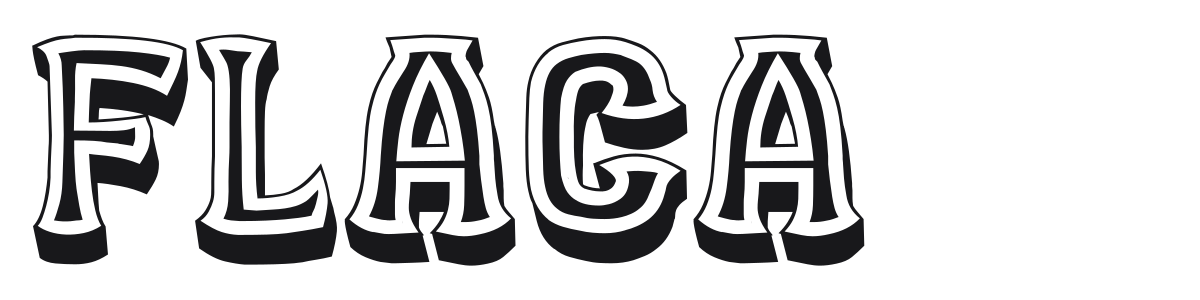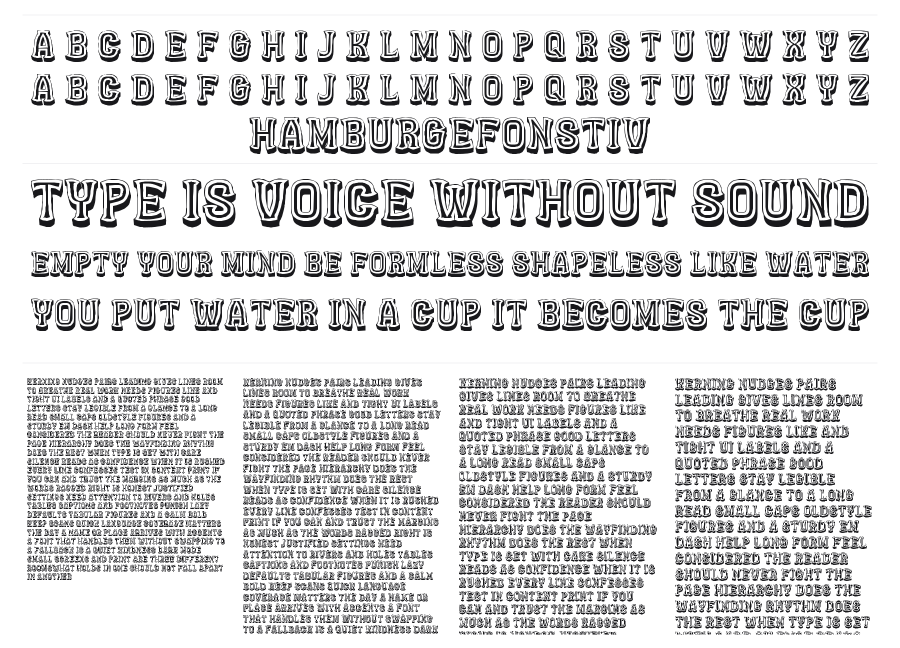
Flaca
Flaca is a bold retro display serif built around a striking inline-plus-drop-shadow treatment that recalls Victorian circus posters and old American signage. The thick strokes, bracketed serifs, and layered depth make it hit hard at large sizes. It carries genuine vintage energy without feeling like a simple pastiche.